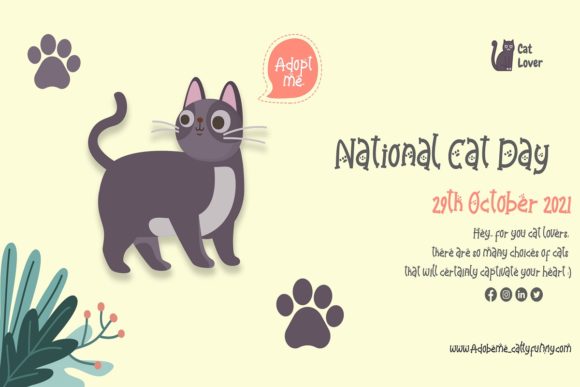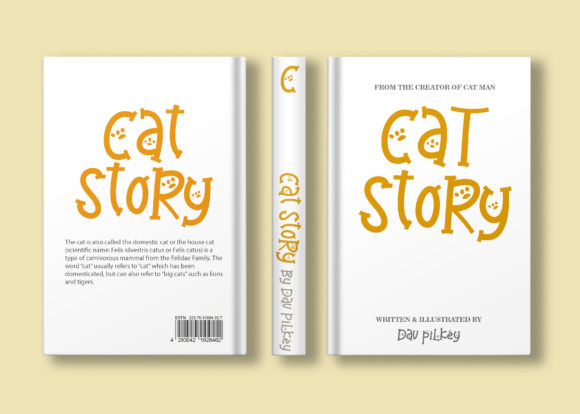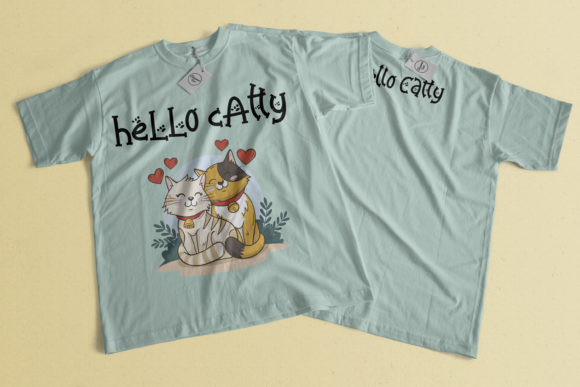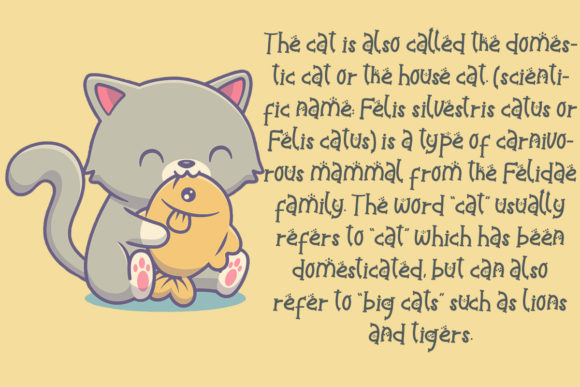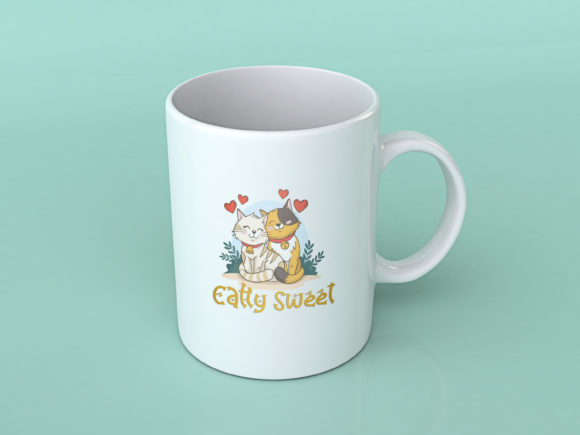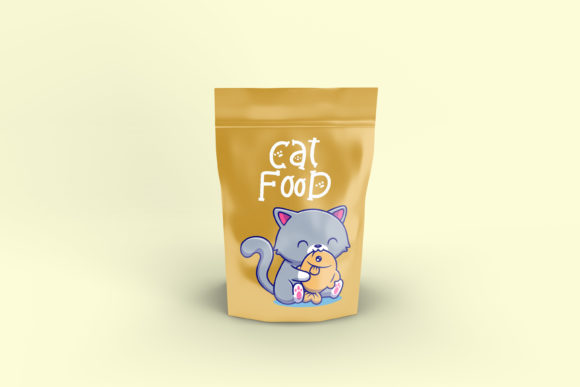
Introducing Catty Funny Font: The Purrfect Choice for Designers and Crafters
Are you tired of using the same old fonts for your designs? Look no further! Catty Funny Font is here to add a touch of whimsy and fun to your creations. This adorable display font is perfect for designers and crafters who want to make their work stand out. In this article, we’ll dive into the features and benefits of Catty Funny Font, and explore its endless possibilities for various design projects.
What is Catty Funny Font?
Catty Funny Font is a cute and unique type of display font that is sure to capture the attention of your audience. The decoration in this font has been specially designed to make it easy to use, even for those who are new to font design. With its playful and quirky style, Catty Funny Font is perfect for adding a personal touch to your designs.
Features of Catty Funny Font
- Unique Design: Catty Funny Font boasts a one-of-a-kind design that is sure to make your creations stand out from the crowd.
- Easy to Use: The font’s decoration has been carefully crafted to make it easy to use, even for beginners.
- Versatile: Catty Funny Font can be used for a wide range of design projects, from posters and mugs to logos and book covers.
- Cute and Playful: The font’s playful style is perfect for designs that require a touch of whimsy and fun.
Uses of Catty Funny Font
Catty Funny Font is perfect for a variety of design projects, including:
- Pet Food Promotion: Use Catty Funny Font to create eye-catching posters and advertisements for pet food products.
- Posters and Flyers: Add a touch of fun and whimsy to your posters and flyers with Catty Funny Font.
- Mug and T-Shirt Designs: Create unique and playful designs for mugs and t-shirts using Catty Funny Font.
- Comic Covers: Use Catty Funny Font to create eye-catching comic covers that will grab the attention of readers.
- Book Covers: Add a touch of personality to your book covers with Catty Funny Font.
- Logos and Branding: Use Catty Funny Font to create unique and memorable logos and branding materials.
- Banners: Create eye-catching banners for events, sales, and promotions using Catty Funny Font.
Tips for Using Catty Funny Font
Here are some tips for getting the most out of Catty Funny Font:
- Experiment with Colors: Try pairing Catty Funny Font with different colors to create unique and eye-catching designs.
- Play with Sizes: Experiment with different font sizes to create visual interest and hierarchy in your designs.
- Combine with Other Fonts: Try pairing Catty Funny Font with other fonts to create interesting and dynamic designs.
- Use for Headlines: Use Catty Funny Font for headlines and titles to add a touch of whimsy and fun to your designs.
Whether you’re a seasoned designer or a crafter just starting out, Catty Funny Font is sure to inspire your creativity and take your designs to the next level. So go ahead, get creative, and have fun with Catty Funny Font!